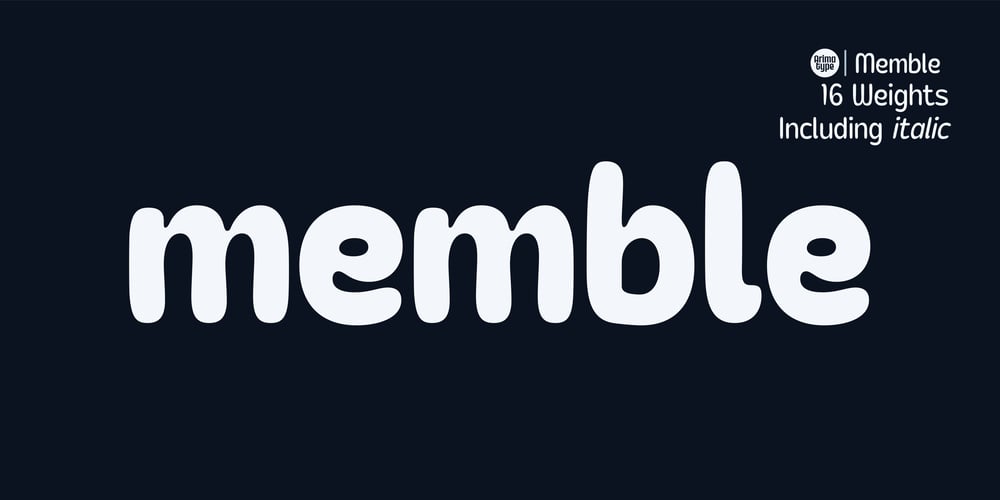
Memble Font Family was designed by Amri Mauludin and published by ArimaType. Memble contains 15 styles and family package options. Memble is a charming display serif font that combines boldness with a playful rounded style. With its chubby and rounded serifs, Memble exudes a friendly and approachable vibe, perfect for creating eye-catching headlines, posters, and branding materials.Key Features: Charming Display Serif: Memble features a unique combination of boldness and rounded serifs, giving it a distinctive and memorable appearance that is sure to captivate your audience. Playful and Friendly: The rounded design of Memble adds a touch of whimsy and friendliness to your designs, making it ideal for projects that require a playful and approachable feel. High Legibility: Despite its boldness, Memble maintains high legibility, ensuring that your message is clear and easy to read, even at smaller sizes. Versatile Usage: Use Memble for a variety of design projects, including logos, packaging, invitations, and more, to add a touch of personality and charm to your creations. Usage Inspiration: Create captivating headlines and banners for websites and social media using Memble to grab attention and engage your audience. Make your product packaging stand out on the shelves with bold and playful typography using Memble. Add a touch of whimsy to your event invitations and greeting cards with Memble for a memorable and inviting presentation. Memble is the perfect choice for designers looking to add a playful and friendly touch to their typography. Elevate your designs with this charming display serif font today!